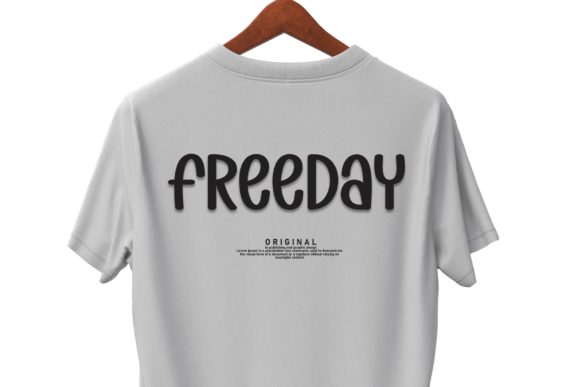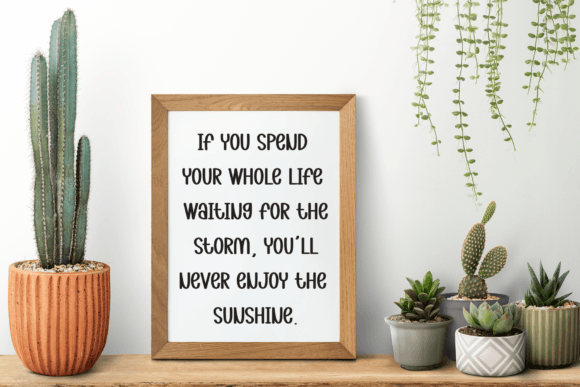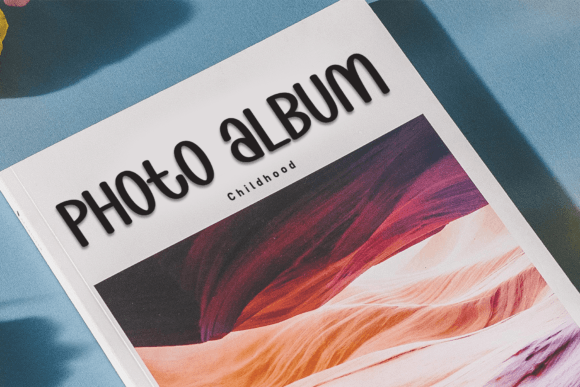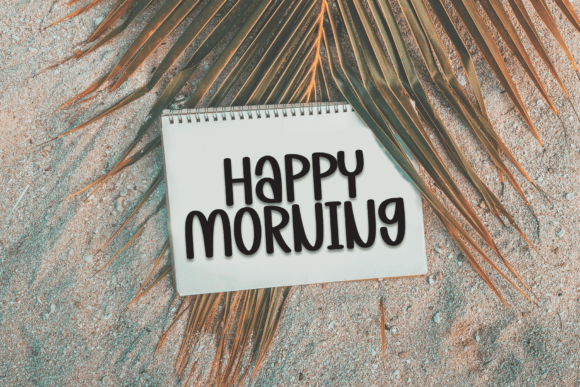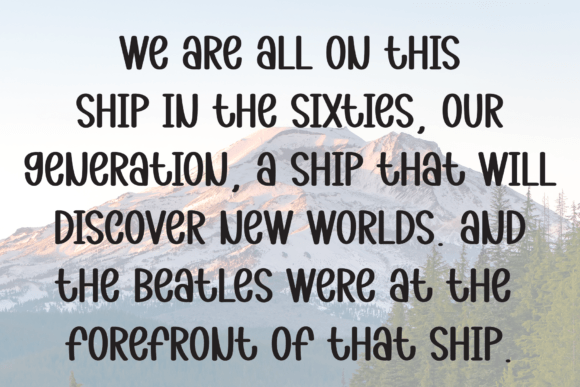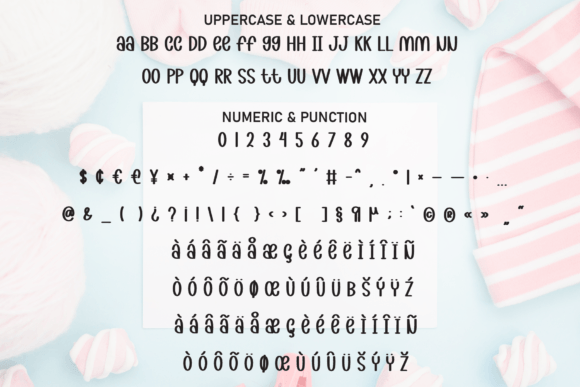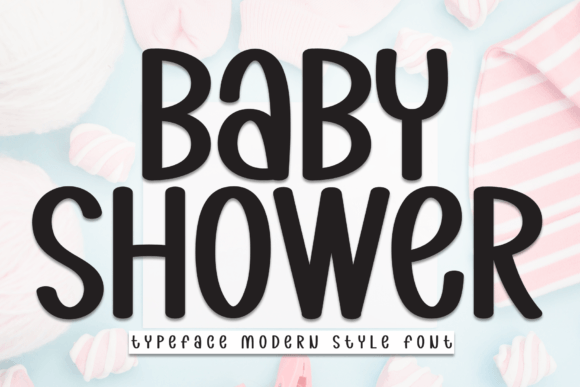
Baby Shower Font: A Charming Handwritten Style for Your Designs
Are you looking for a font that exudes warmth, friendliness, and a touch of casual elegance? Look no further than the Baby Shower font! This beautiful, handwritten-style font is perfect for designers, crafters, and anyone looking to add a personal touch to their projects. In this article, we’ll dive into the world of Baby Shower font, exploring its unique features, uses, and benefits.
What is Baby Shower Font?
Baby Shower font is a casual, handwritten font designed to capture a relaxed and friendly vibe. Its natural, flowing strokes give it an effortless charm that’s perfect for a variety of design applications. Whether you’re creating personal projects, social media graphics, or invitations, this font is sure to bring a warm and authentic touch to your designs.
Key Features of Baby Shower Font
- Handwritten style: Baby Shower font boasts a beautiful, handwritten style that’s perfect for adding a personal touch to your designs.
- Natural and flowing strokes: The font’s natural, flowing strokes give it a relaxed and friendly vibe that’s perfect for casual designs.
- Easygoing style: Baby Shower font has an easygoing style that adds warmth and authenticity to any design.
- Versatile: This font is ideal for a variety of design applications, including personal projects, social media, invitations, and more.
Uses of Baby Shower Font
Baby Shower font is perfect for a wide range of design applications, including:
- Personal projects: Use Baby Shower font to add a personal touch to your scrapbooking, journaling, or other craft projects.
- Social media graphics: Add a friendly and approachable vibe to your social media graphics, including Facebook posts, Instagram stories, and more.
- Invitations: Use Baby Shower font to create beautiful, handwritten-style invitations for baby showers, birthday parties, and other special events.
- Stationery and gift tags: Add a touch of elegance and sophistication to your stationery and gift tags with Baby Shower font.
Benefits of Using Baby Shower Font
So, why choose Baby Shower font for your designs? Here are just a few benefits:
- Unique and eye-catching: Baby Shower font is a unique and eye-catching font that’s sure to grab attention.
- Easy to read: The font’s clear and flowing strokes make it easy to read, even at smaller sizes.
- Customizable: Baby Shower font is highly customizable, allowing you to adjust the size, color, and style to suit your design needs.
- Time-saving: With Baby Shower font, you can create beautiful, handwritten-style designs in a fraction of the time it would take to create them by hand.
Tips for Using Baby Shower Font
Here are a few tips for getting the most out of Baby Shower font:
- Pair with other fonts: Experiment with pairing Baby Shower font with other fonts to create unique and interesting combinations.
- Adjust the size and color: Don’t be afraid to adjust the size and color of Baby Shower font to suit your design needs.
- Use it sparingly: Use Baby Shower font sparingly to add a touch of elegance and sophistication to your designs.
In conclusion, Baby Shower font is a beautiful, handwritten-style font that’s perfect for designers, crafters, and anyone looking to add a personal touch to their projects. With its natural, flowing strokes and easygoing style, this font is sure to bring a warm and authentic touch to any design. Whether you’re creating personal projects, social media graphics, or invitations, Baby Shower font is a great choice. So why not give it a try and see the difference it can make in your designs?